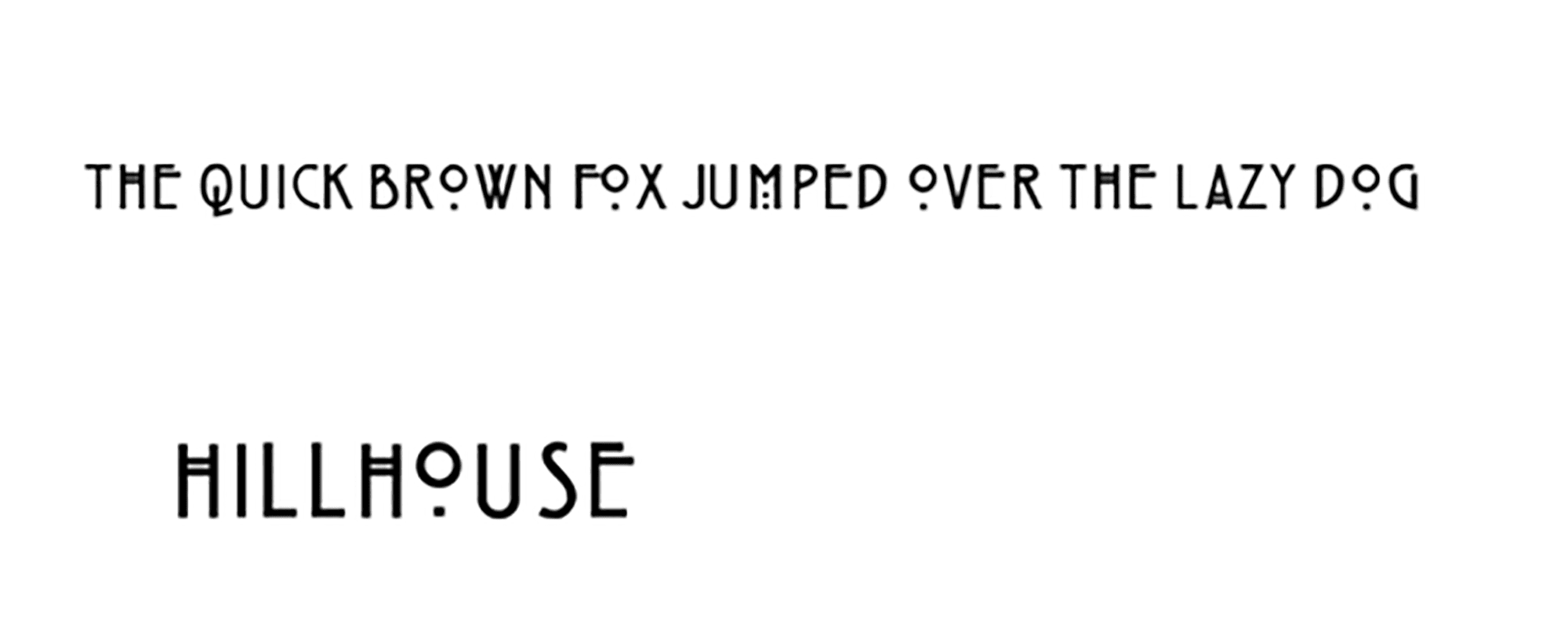
Hillhouse Font . download the top 20 free hill house font details. crafted with meticulous attention to detail, the hill house font by jon hicks captures the essence of mackintosh's original handwriting and. hill house font. View font details, character map, custom preview, downloads, file contents. You can download the hill house font to your. the font features special glyphs for the words ‘to’, ‘at’ and ‘of’, and contains mac, pc and. hill house font family designed by jon hicks has a total of 1 different styles.
You can download the hill house font to your. download the top 20 free hill house font details. View font details, character map, custom preview, downloads, file contents. hill house font. hill house font family designed by jon hicks has a total of 1 different styles. the font features special glyphs for the words ‘to’, ‘at’ and ‘of’, and contains mac, pc and. crafted with meticulous attention to detail, the hill house font by jon hicks captures the essence of mackintosh's original handwriting and.
Hillhouse Font the font features special glyphs for the words ‘to’, ‘at’ and ‘of’, and contains mac, pc and. crafted with meticulous attention to detail, the hill house font by jon hicks captures the essence of mackintosh's original handwriting and. View font details, character map, custom preview, downloads, file contents. hill house font. download the top 20 free hill house font details. the font features special glyphs for the words ‘to’, ‘at’ and ‘of’, and contains mac, pc and. hill house font family designed by jon hicks has a total of 1 different styles. You can download the hill house font to your.
american horror story font download efirabooks Hillhouse Font hill house font. hill house font family designed by jon hicks has a total of 1 different styles. View font details, character map, custom preview, downloads, file contents. download the top 20 free hill house font details. You can download the hill house font to your. crafted with meticulous attention to detail, the hill house font. Hillhouse Font.
HillHouse.png (613×521) by sufferer WHI Hillhouse Font crafted with meticulous attention to detail, the hill house font by jon hicks captures the essence of mackintosh's original handwriting and. download the top 20 free hill house font details. View font details, character map, custom preview, downloads, file contents. hill house font. the font features special glyphs for the words ‘to’, ‘at’ and ‘of’, and. Hillhouse Font.
The Ultimate Free Fonts Collection Aesthetic Fonts Fr vrogue.co Hillhouse Font hill house font family designed by jon hicks has a total of 1 different styles. View font details, character map, custom preview, downloads, file contents. hill house font. You can download the hill house font to your. download the top 20 free hill house font details. crafted with meticulous attention to detail, the hill house font. Hillhouse Font.
HillHouse Reviews Etsy, Vintage, Trending outfits Hillhouse Font the font features special glyphs for the words ‘to’, ‘at’ and ‘of’, and contains mac, pc and. You can download the hill house font to your. download the top 20 free hill house font details. crafted with meticulous attention to detail, the hill house font by jon hicks captures the essence of mackintosh's original handwriting and. . Hillhouse Font.
Hill House Font Download Free for Desktop & font Hillhouse Font View font details, character map, custom preview, downloads, file contents. crafted with meticulous attention to detail, the hill house font by jon hicks captures the essence of mackintosh's original handwriting and. download the top 20 free hill house font details. hill house font. the font features special glyphs for the words ‘to’, ‘at’ and ‘of’, and. Hillhouse Font.
the hill house font with 5 sizes 8 formats and bx for each letter Hillhouse Font hill house font family designed by jon hicks has a total of 1 different styles. the font features special glyphs for the words ‘to’, ‘at’ and ‘of’, and contains mac, pc and. crafted with meticulous attention to detail, the hill house font by jon hicks captures the essence of mackintosh's original handwriting and. You can download the. Hillhouse Font.